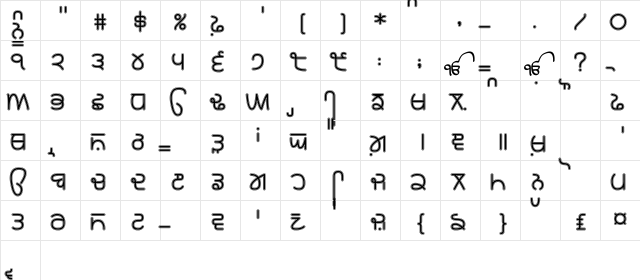
Rupe Border 8 Heavy Short
| Style | Short |
| Foundry | Paul Alan Grosse |
| Designer | Paul Alan Grosse |
Design Context for Rupe Border 8 Heavy Typeface
Rupe Border 8 Heavy takes a measured approach to typography — its balanced proportions and neutral character make it a reliable workhorse for both digital and print work.